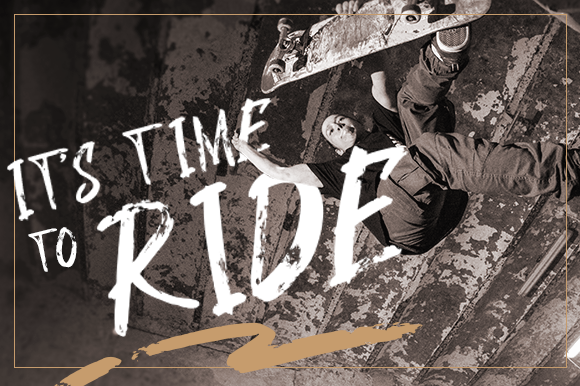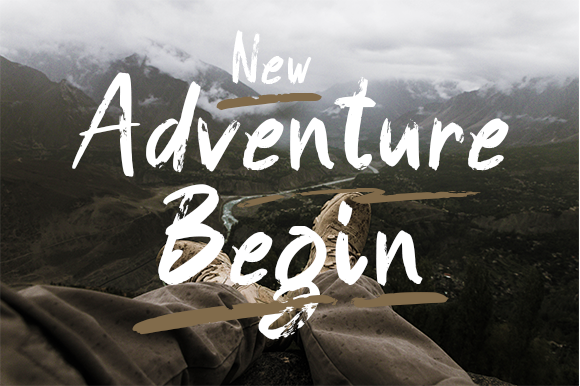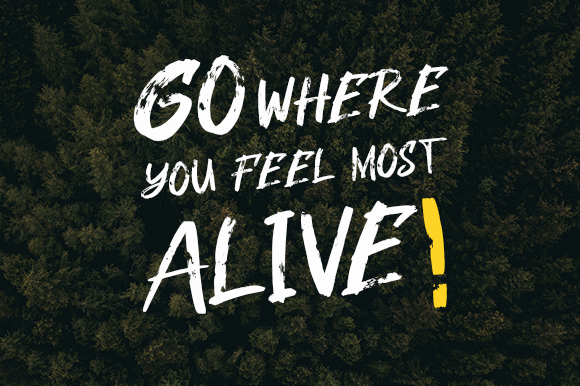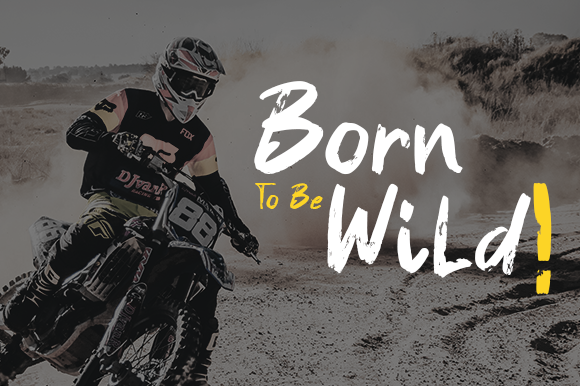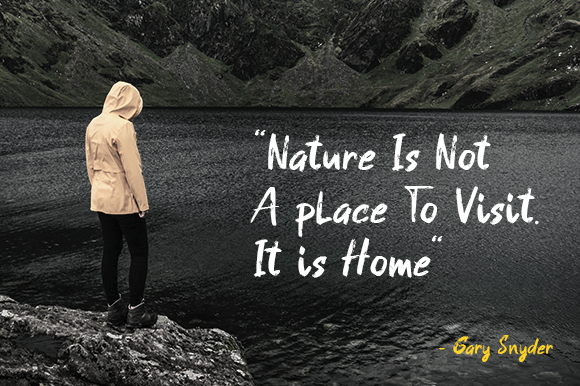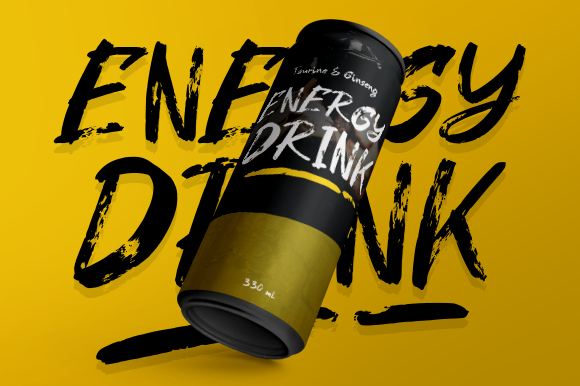
Introduction to Gastrax Font
Gastrax is a bold brushed display font.
Rough textured yet readable, this font makes a great choice for a wide range of urban designs Add it confidently to your projects, and you wonโt be disappointed.
Key Features of Gastrax Font
Why Choose Gastrax Font?